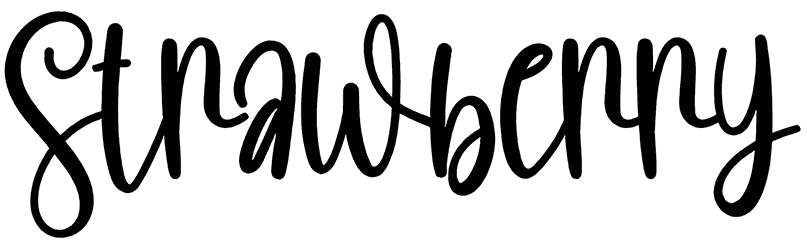
Strawberry Font
Sweet and delicate would be a nice definition for this handwritten font that can give your design a touch of natural mood. Strawberry font with its cursive form almost offers all of the characters, and you can benefit from it for any short or long text. Create a summer party flyer with this script font and amaze your followers.